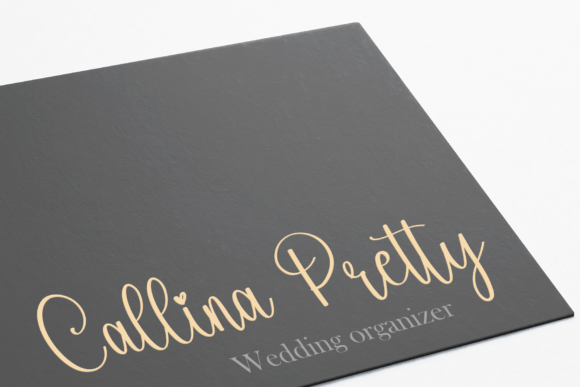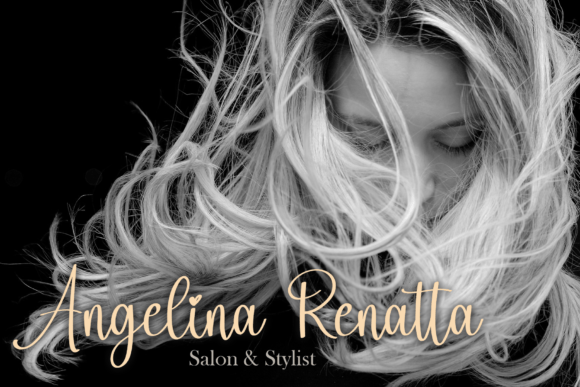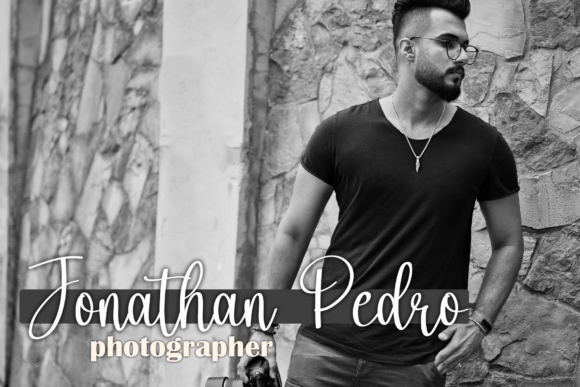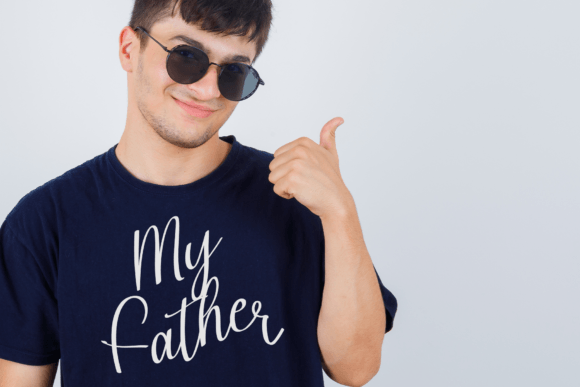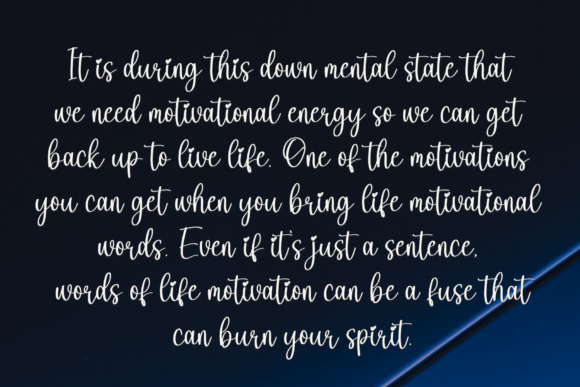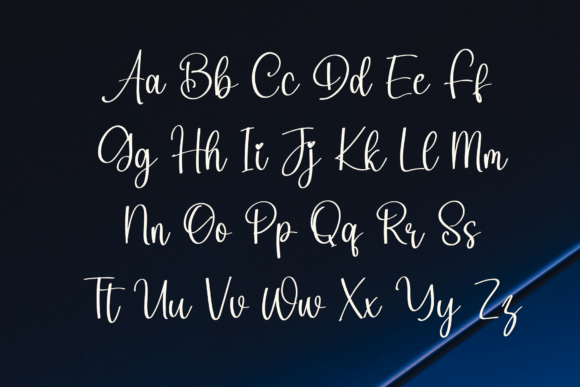
Introducing Christian Font: Elevate Your Designs with Timeless Elegance
Are you a designer or crafter looking for a font that exudes sophistication and style? Look no further than Christian Font, a stunning handwritten font that brings a touch of classic elegance to your projects. Inspired by the beauty of timeless calligraphy, Christian Font is a contemporary and versatile typeface that is sure to elevate your designs.
The Inspiration Behind Christian Font
Christian Font is a masterful blend of traditional calligraphy and modern design. Its creator drew inspiration from the classic scripts of the past, carefully crafting each letterform to evoke a sense of refinement and poise. The result is a font that feels both nostalgic and fresh, perfect for designers who want to add a touch of sophistication to their work.
Key Features of Christian Font
So, what sets Christian Font apart from other fonts on the market? Here are just a few of its key features:
- Handwritten with love: Christian Font is a carefully crafted handwritten font, with each letterform lovingly drawn to create a sense of warmth and personality.
- Contemporary atmosphere: Despite its classic inspiration, Christian Font feels thoroughly modern and fresh, making it perfect for designers who want to create contemporary designs.
- Impeccable form: Every letterform in Christian Font has been meticulously crafted to ensure that it is both beautiful and legible.
- Balanced and varied: Christian Font features a range of letterforms and ligatures, ensuring that your designs always look balanced and visually appealing.
Why Choose Christian Font?
With so many fonts on the market, it can be hard to know which one to choose. Here are just a few reasons why Christian Font stands out:
- Enhance the beauty of your projects: Christian Font is designed to add a touch of elegance to your designs, making it perfect for projects where you want to create a lasting impression.
- Perfect for branding and advertising: With its sophisticated and refined feel, Christian Font is ideal for use in branding and advertising projects, where you want to create a strong and memorable visual identity.
- Great for crafts and DIY projects: Christian Font is also perfect for crafters and DIY enthusiasts who want to add a personal touch to their projects.
Using Christian Font in Your Designs
So, how can you use Christian Font in your designs? Here are a few ideas to get you started:
- Pair it with bold colors: Christian Font looks stunning paired with bold, bright colors. Try using it with a vibrant background to create a striking visual effect.
- Use it for headings and titles: Christian Font is perfect for use in headings and titles, where you want to create a strong visual impact.
- Experiment with different sizes: Christian Font looks great in a range of sizes, from large headings to smaller body text.
Christian Font is a truly exceptional font that is sure to elevate your designs. With its timeless elegance, impeccable form, and versatile design, it’s the perfect choice for designers and crafters who want to create beautiful and sophisticated projects. Whether you’re working on a branding project, a craft project, or simply want to add a touch of elegance to your designs, Christian Font is a must-have font in your collection.